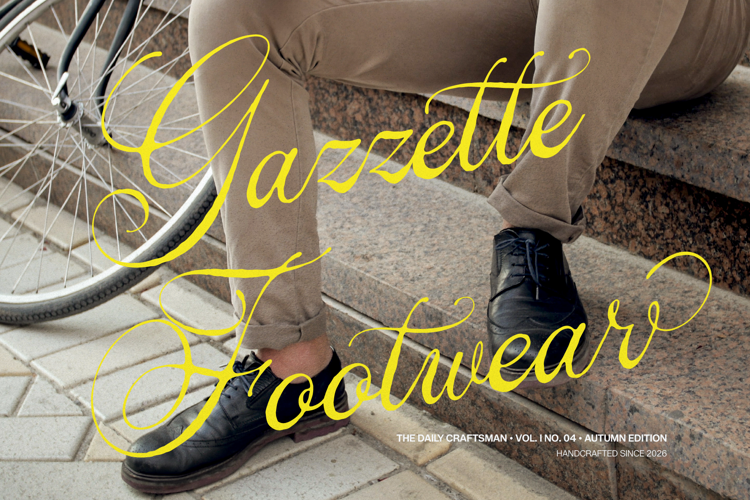
Alventary Font
Alventary | Classic Elegant Script, is suitable for any projects such as: logos, branding projects, homeware designs, product packaging, mugs, quotes, posters, shopping bags, t-shirts, book covers, name card, invitation cards, greeting cards, label, photography, watermark, special events, and all your other lovely projects that need a Script Font taste.